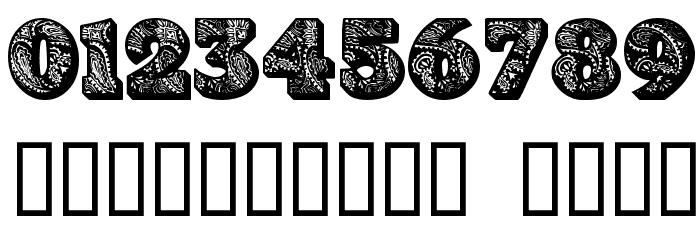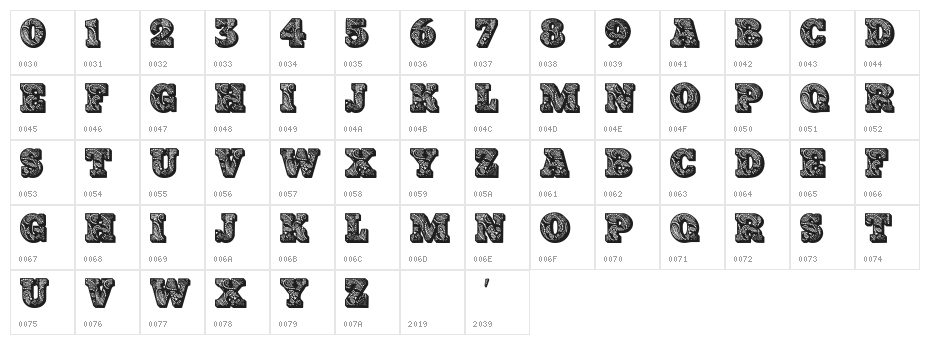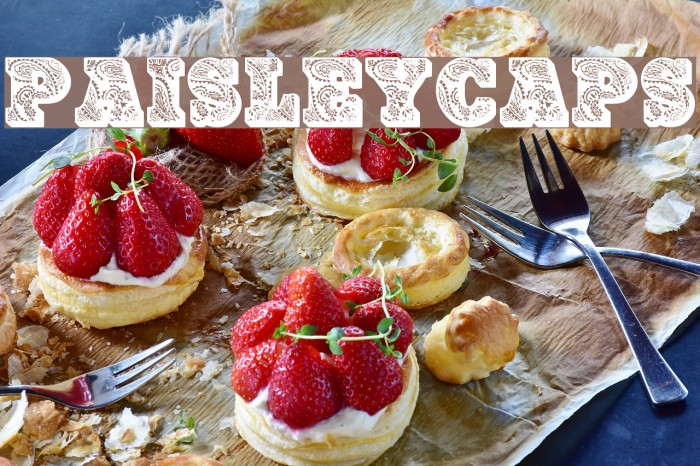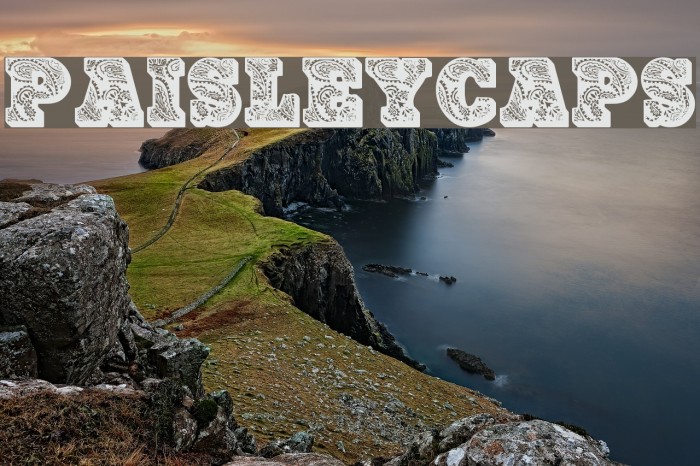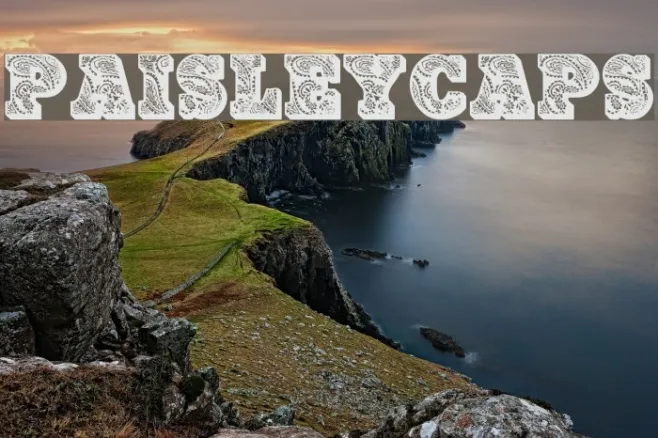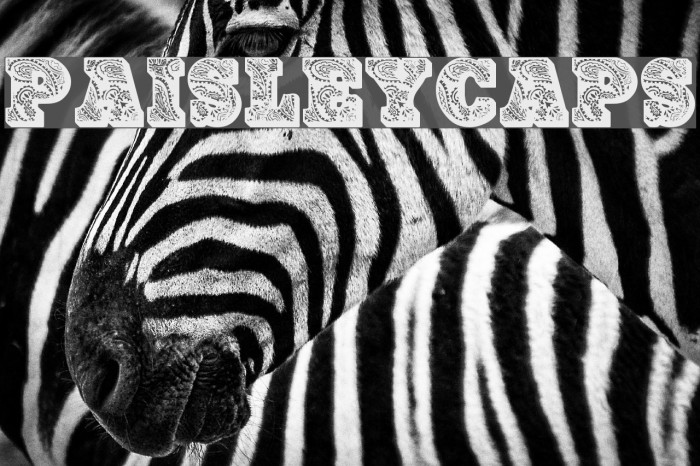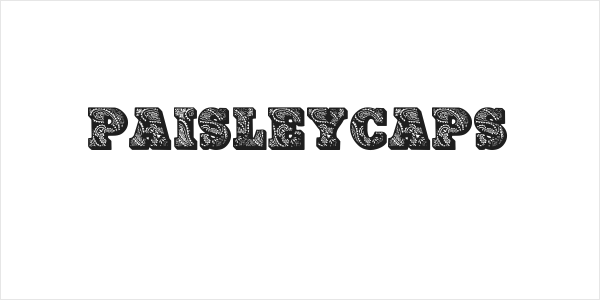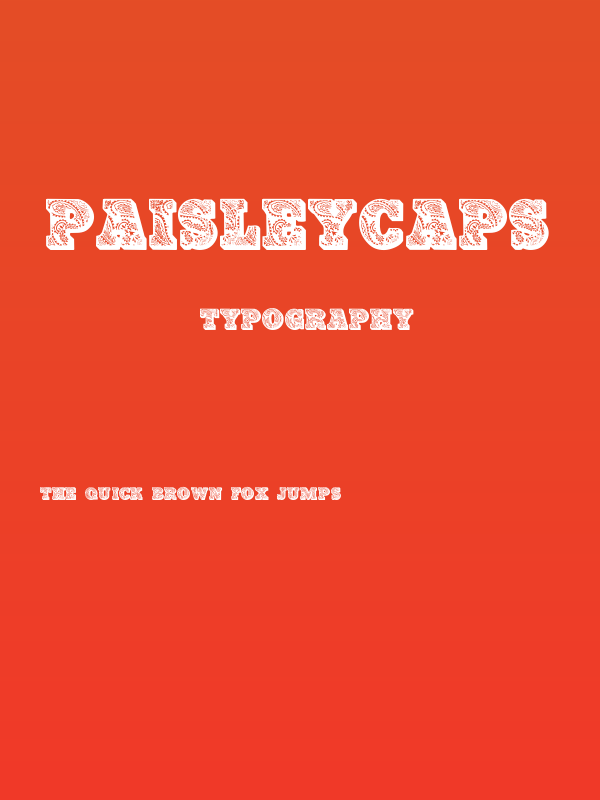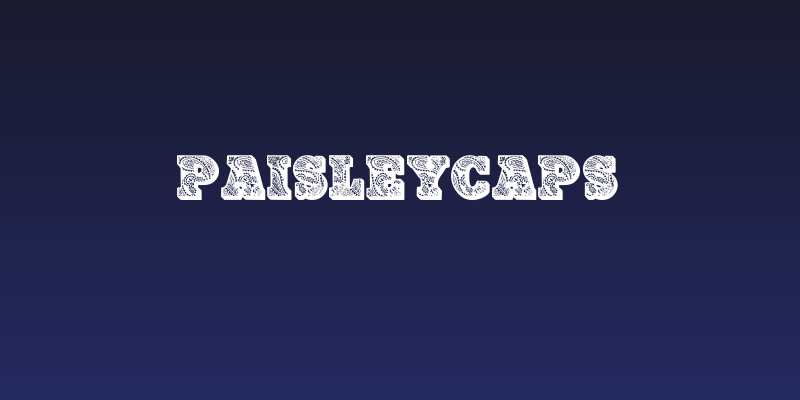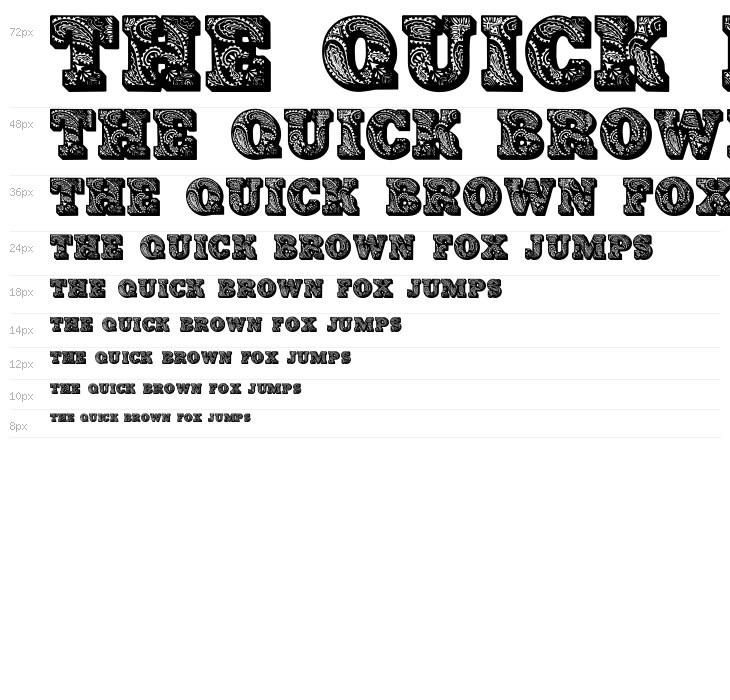
PaisleyCaps Font
PaisleyCaps Description
This font features a highly decorative and intricate design, with each character filled with detailed paisley patterns. The bold and ornate style makes it stand out, offering a unique visual appeal. The uppercase letters are consistent in their elaborate detailing, while the numbers and special characters maintain the same level of intricacy. The font's decorative nature is ideal for projects that require a touch of elegance and complexity, making it suitable for artistic and creative applications.
| Use Case | Logos, Posters, Artistic projects |
| Proposed Projects | Ideal for artistic projects, invitations, posters, and branding that require a decorative and unique touch. |